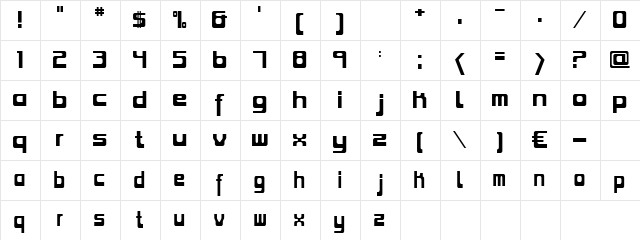
Roman Castor Regular
Design Context for Roman Castor Typeface
Roman Castor takes a measured approach to typography — its balanced proportions and neutral character make it a reliable workhorse for both digital and print work.